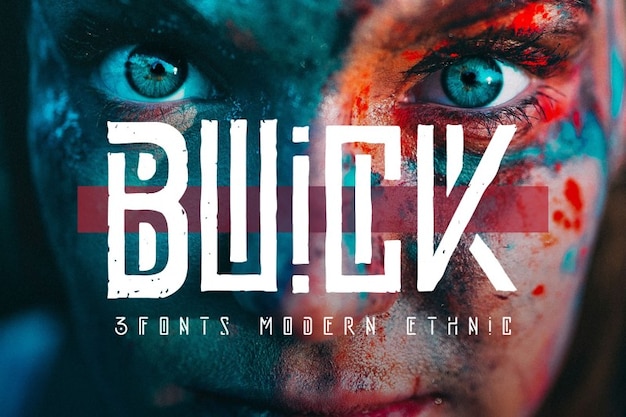
Buick Font
Buick font is a modern masterpiece, where creativity converges with ethnic tribal artistry to craft decorative wonders. Each character is a visual tapestry, turning your text into a mesmerizing work of creativity. It's the ideal choice when you want to infuse your designs with a contemporary touch and the richness of tribal heritage. Buick is the font that effortlessly marries modern aesthetics with ethnic charm, making your words a captivating expression of cultural diversity and creative brilliance.